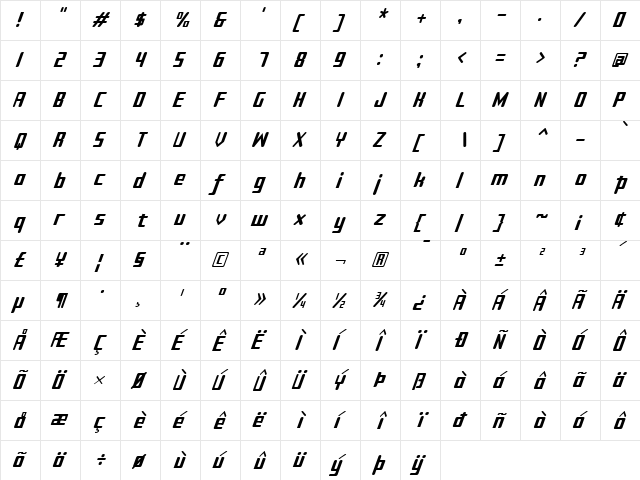
Sujeta Italic
Design Context for Sujeta Typeface
Sujeta is a composed and adaptable typeface that performs quietly and consistently across a wide range of design contexts. Its italic angle brings a sense of urgency and motion to the letterforms.
Pro Tip: Try Sujeta for annotation and caption copy alongside an upright companion — the contrast in angle creates a dynamic but ordered typographic system.